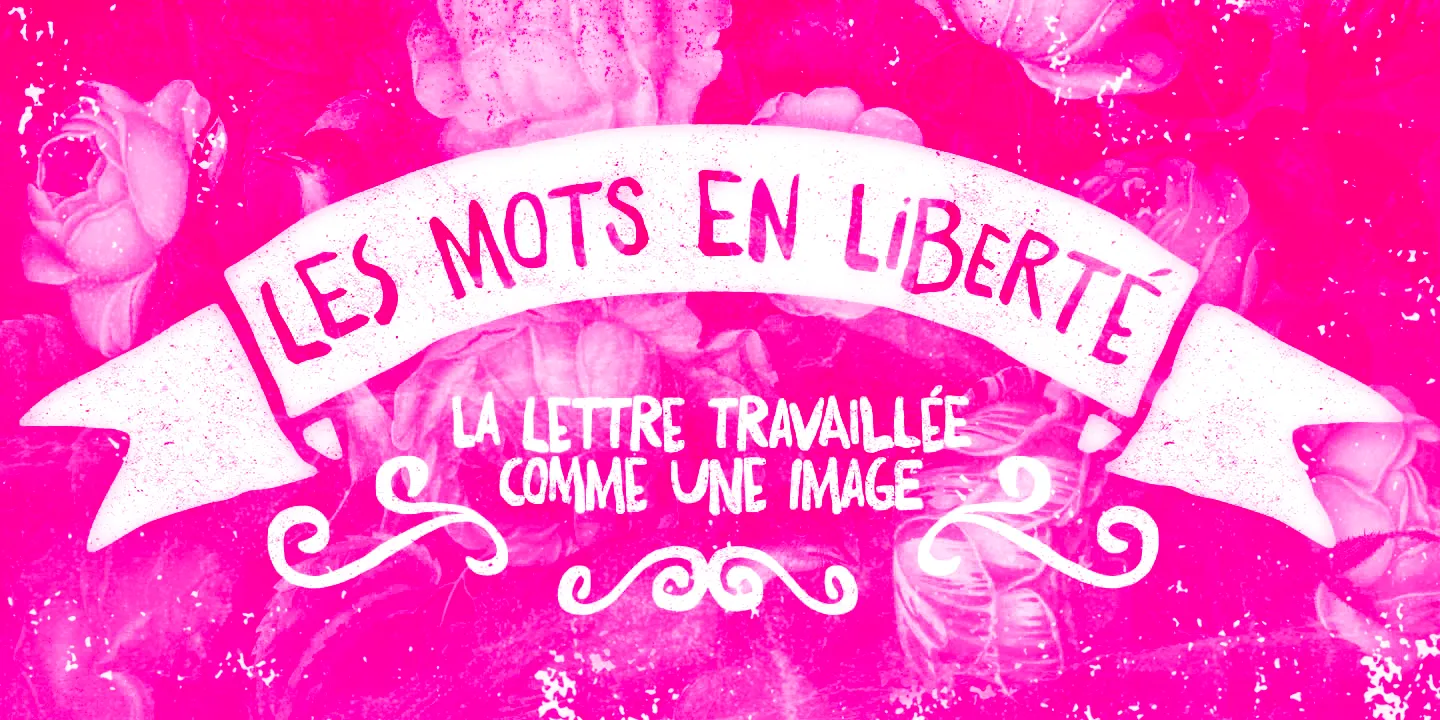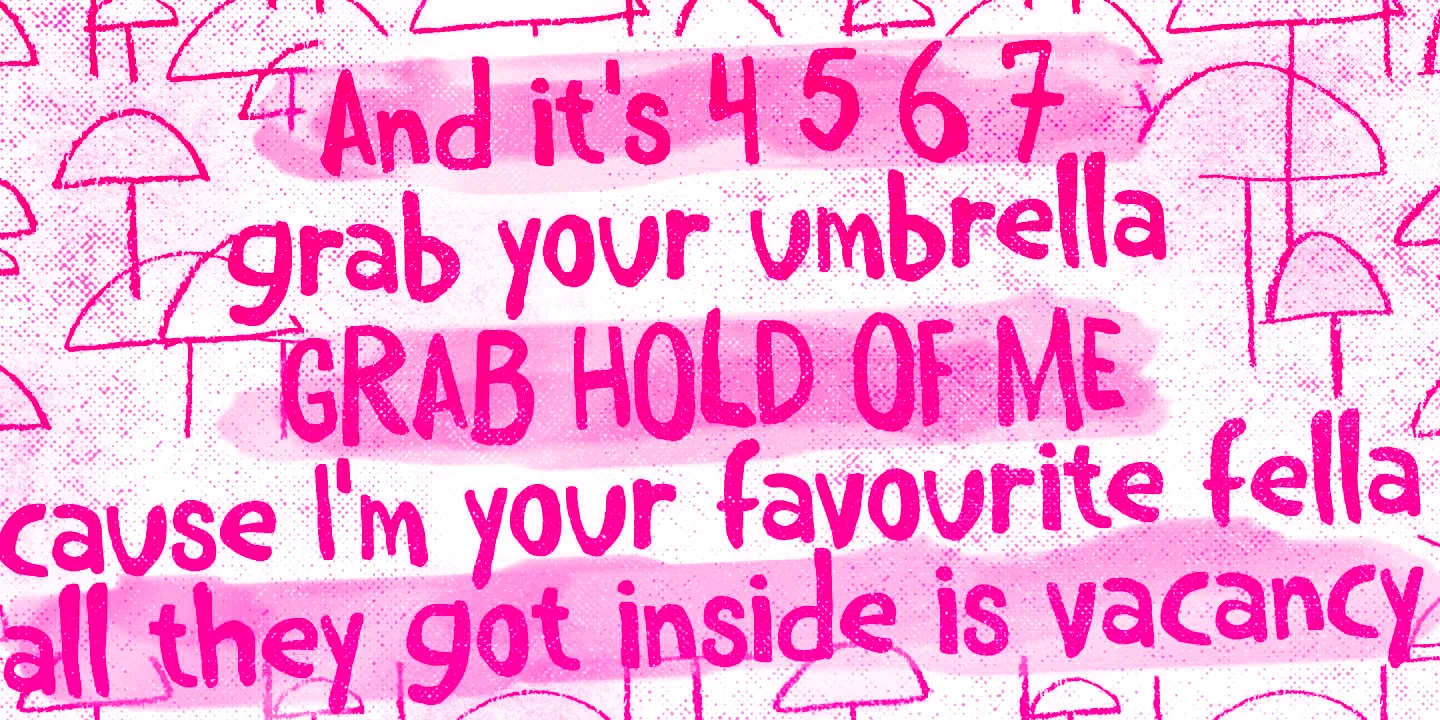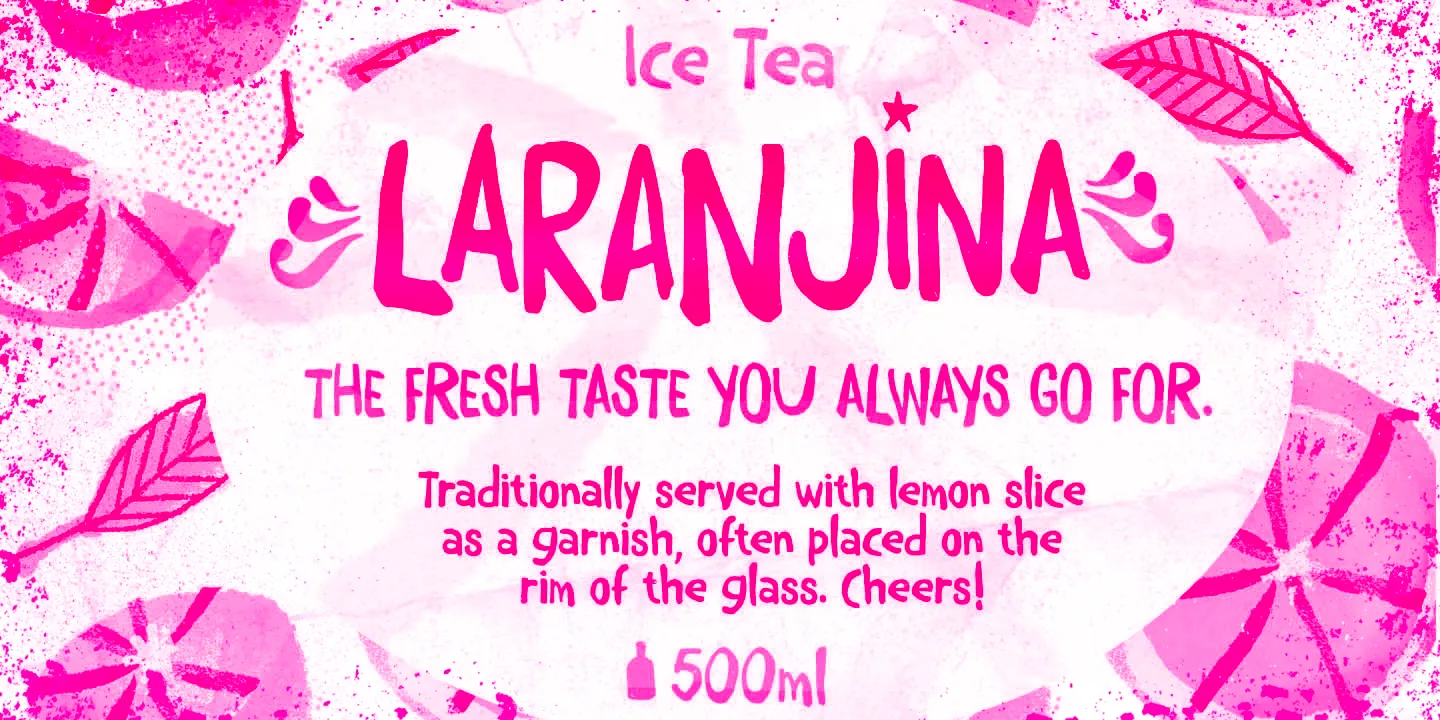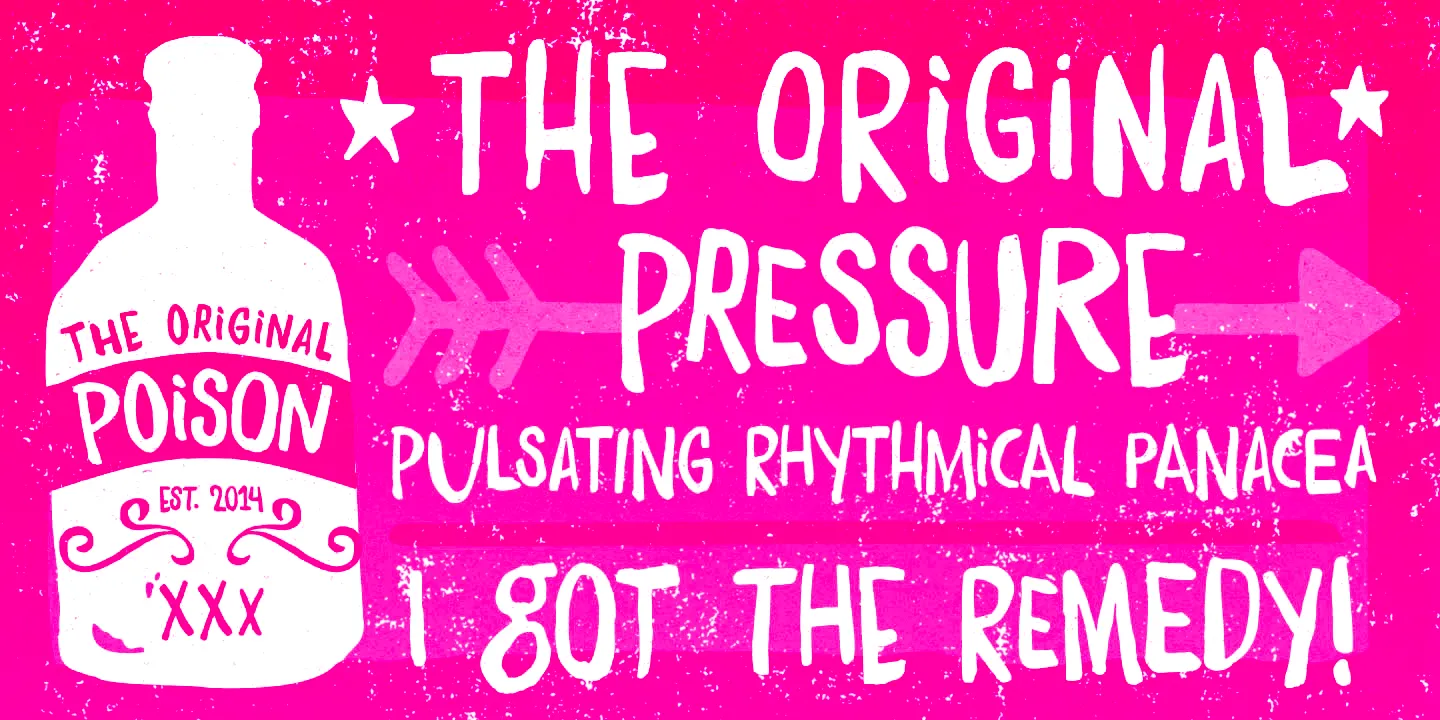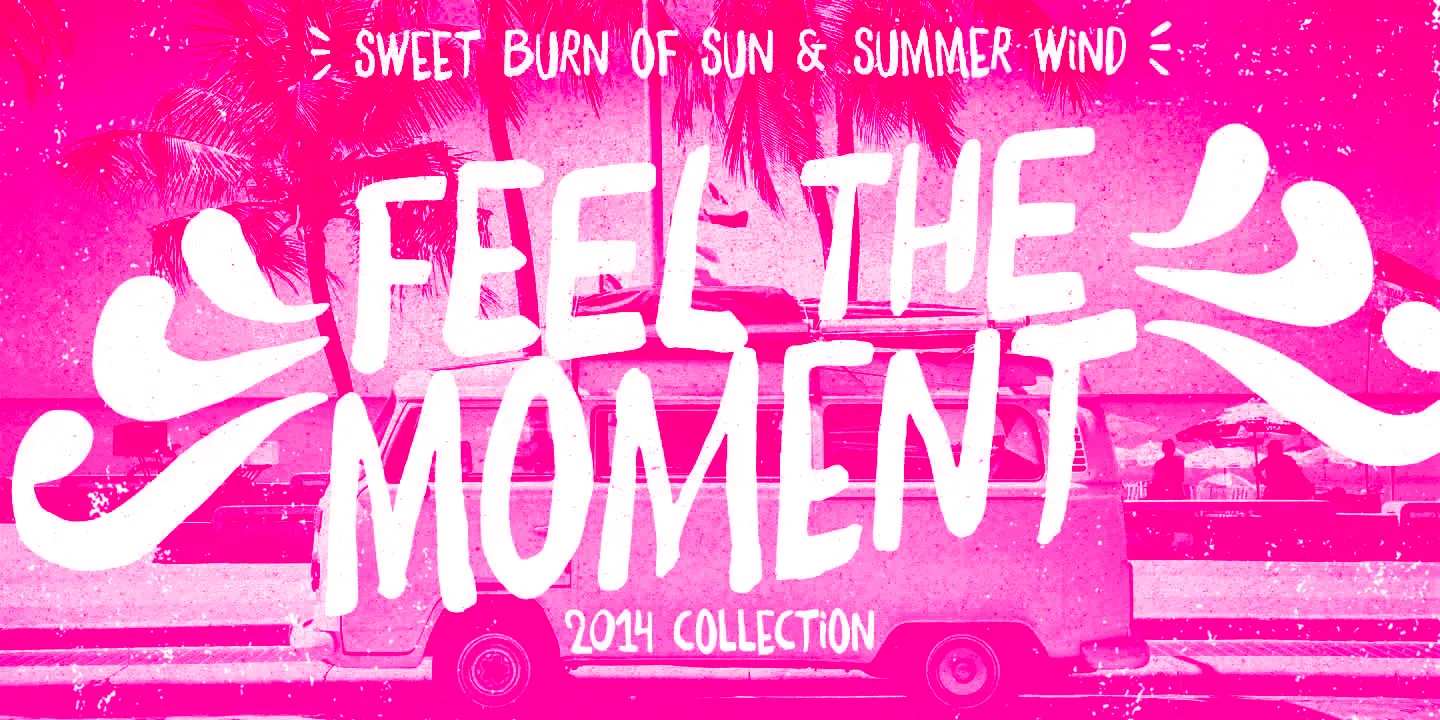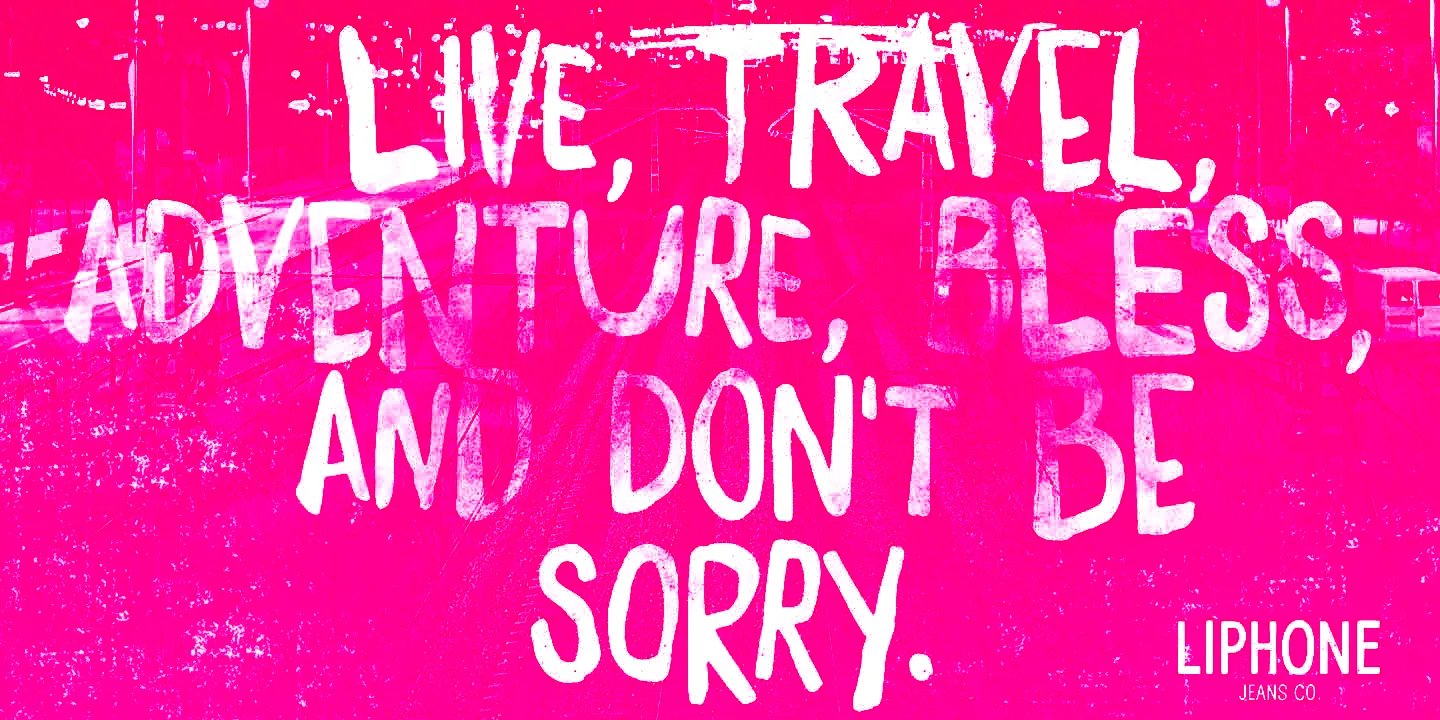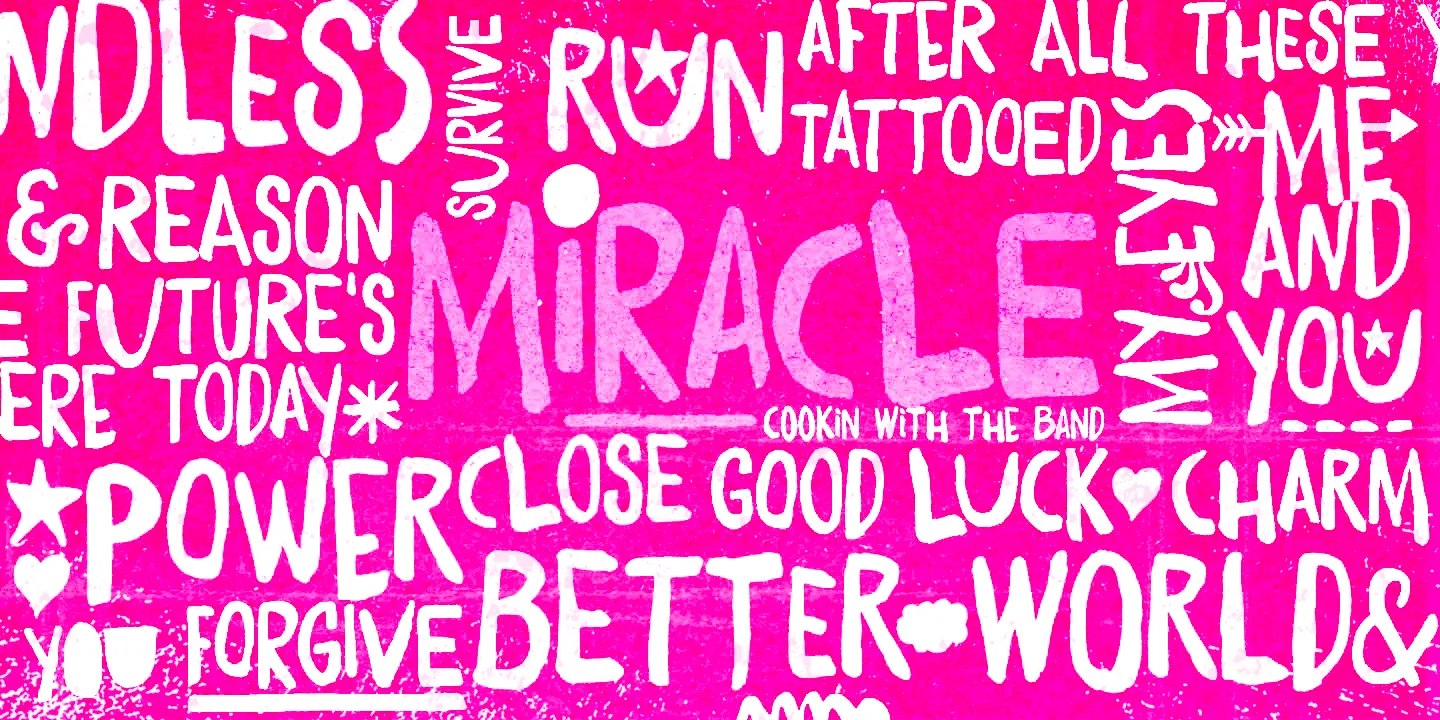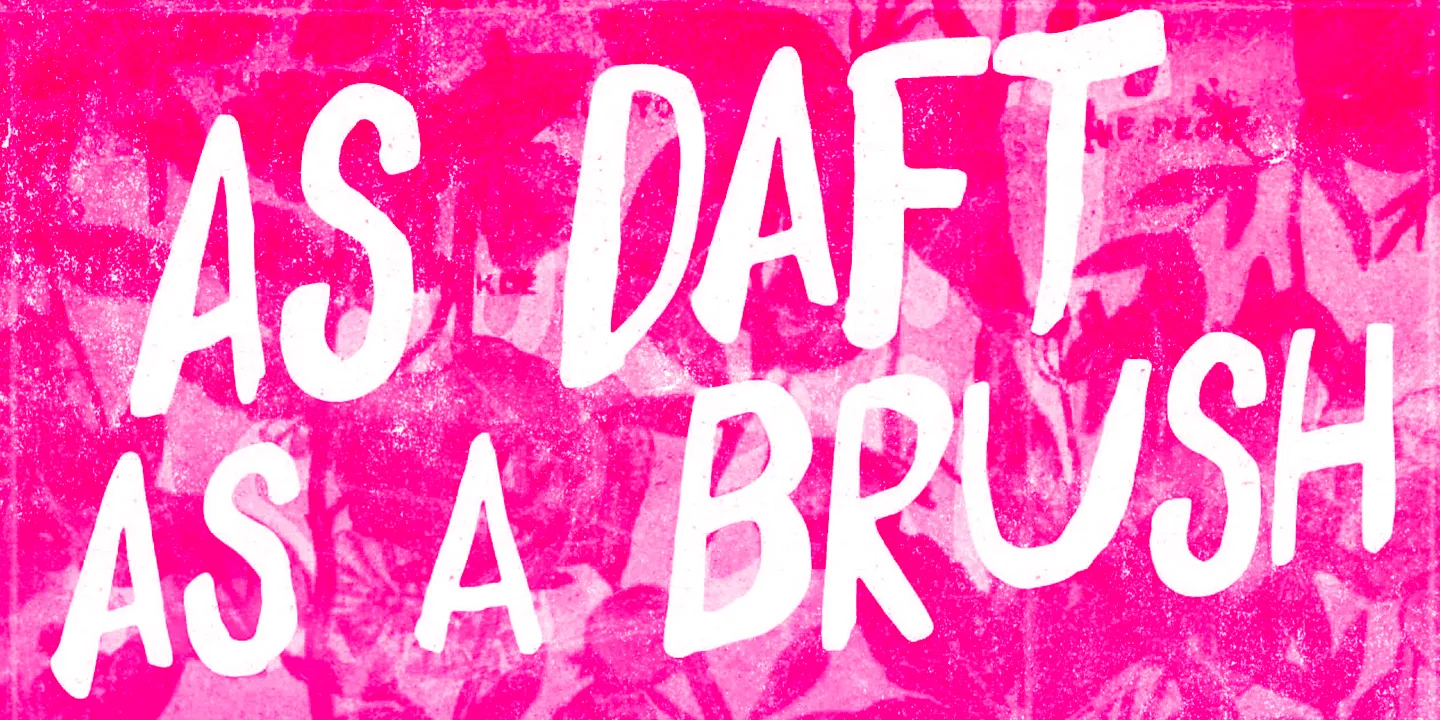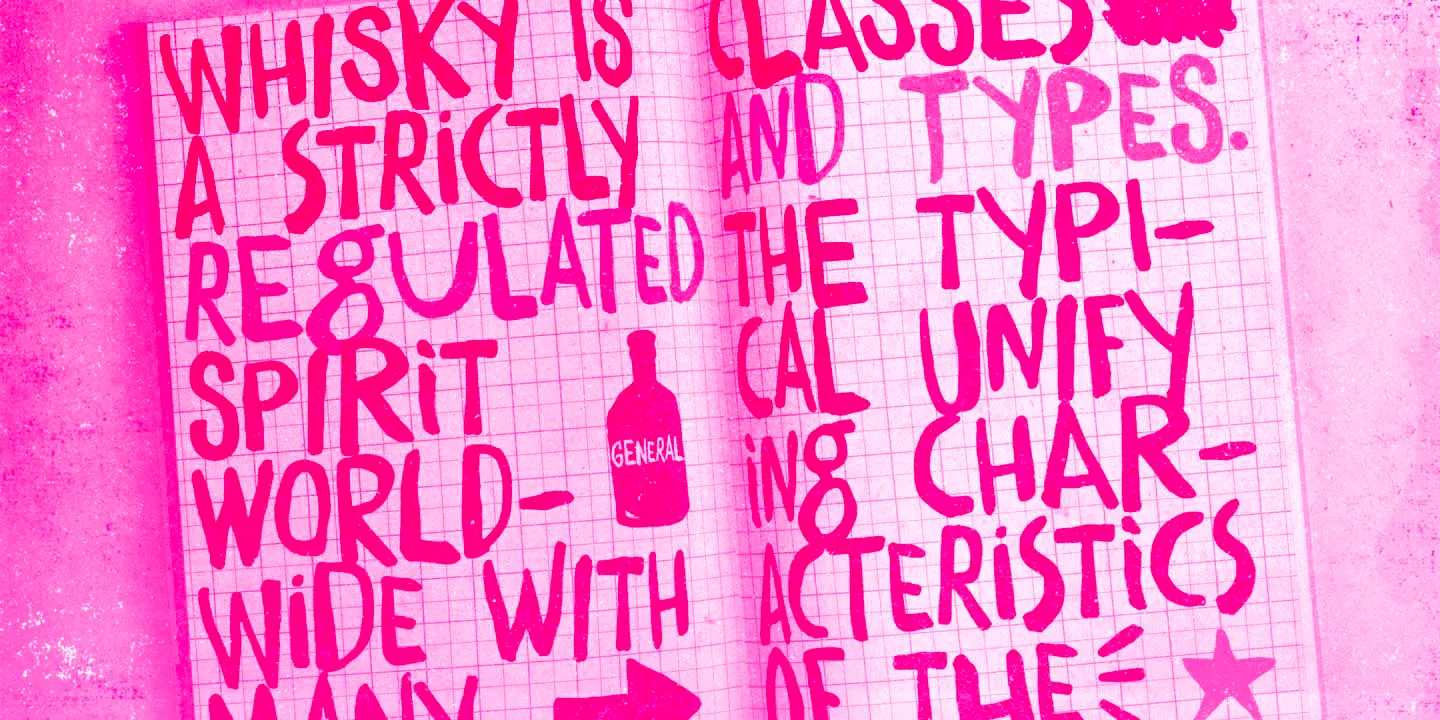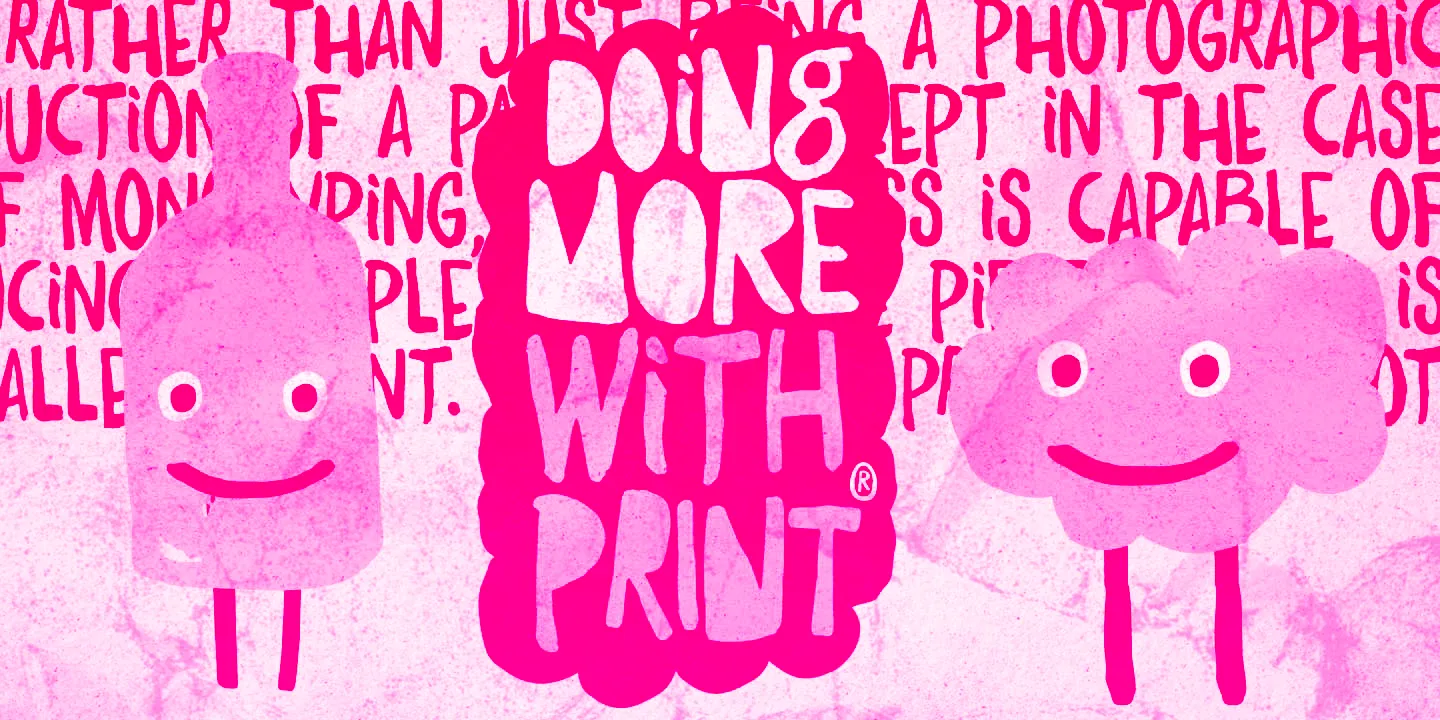
Daft Brush Font Family
Daft Brush
Daft Brush is the stylish contemporary brush font you’ve been looking for. It’s not just a rad face. The original cut features four alternates for each letter, creating an amazing, organic feel. Perfect for adding the look of hand-lettering to children’s books, posters, packaging, and zines! Unique designs are guaranteed! It’s only rock and roll, and we like it. Play it loud!